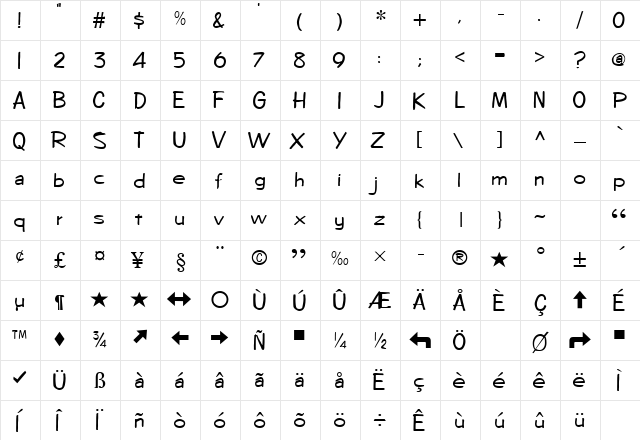
Diego Regular Font Preview
Diego Regular
Diego Regular Font Details
Design Context for Diego Typeface
Diego takes a measured approach to typography — its balanced proportions and neutral character make it a reliable workhorse for both digital and print work.